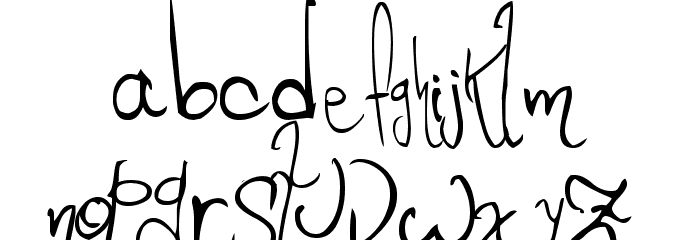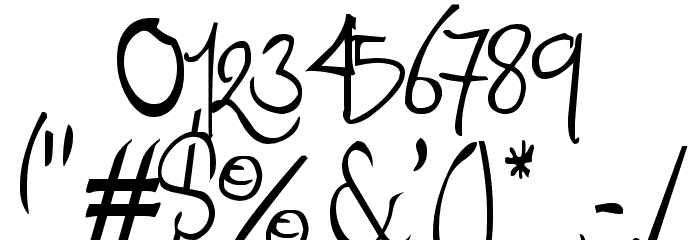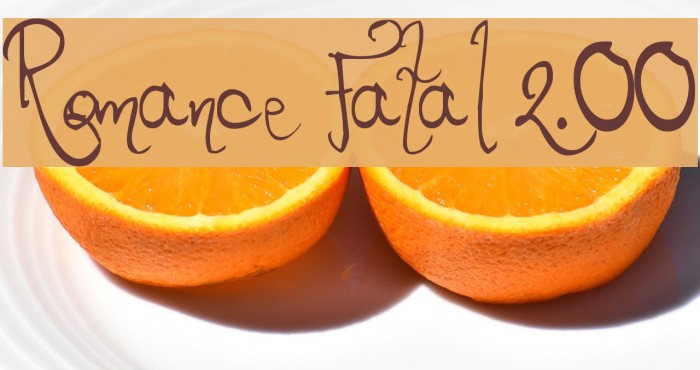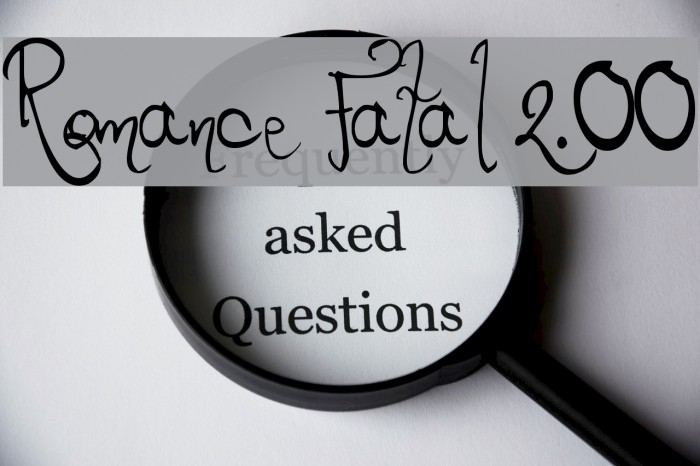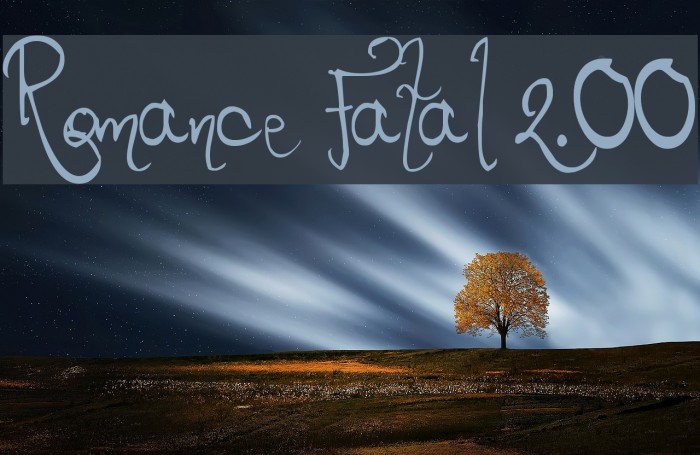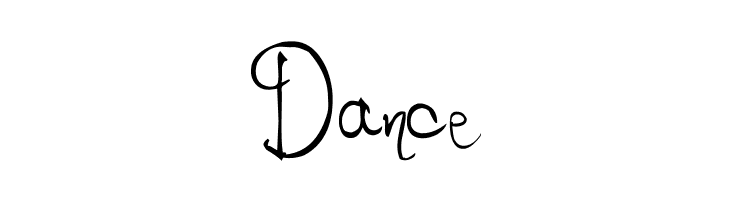
Romance Fatal 2.00 Font
This font features a distinctive and artistic script style, characterized by its flowing, interconnected letters that exude a sense of elegance and creativity. The uppercase letters are bold and expressive, with unique flourishes and loops that add a touch of whimsy. The lowercase letters maintain a consistent style, with some characters extending below the baseline, enhancing the font's dynamic appearance. Numbers and special characters are crafted with the same artistic flair, ensuring a cohesive look across all text elements. The font's overall design is both playful and sophisticated, making it suitable for projects that require a personal, handwritten touch.
An artistic script font with flowing, interconnected letters and whimsical flourishes.
- Font: Romance Fatal 2.00
by JuanCasco - Weight: 2.00 [Aflicción]
- Proposed Projects: Ideal for wedding invitations, greeting cards, artistic branding, and creative projects that require a personal touch.
- Category: Script
- Use Case: Logos, Invitations, Artistic projects